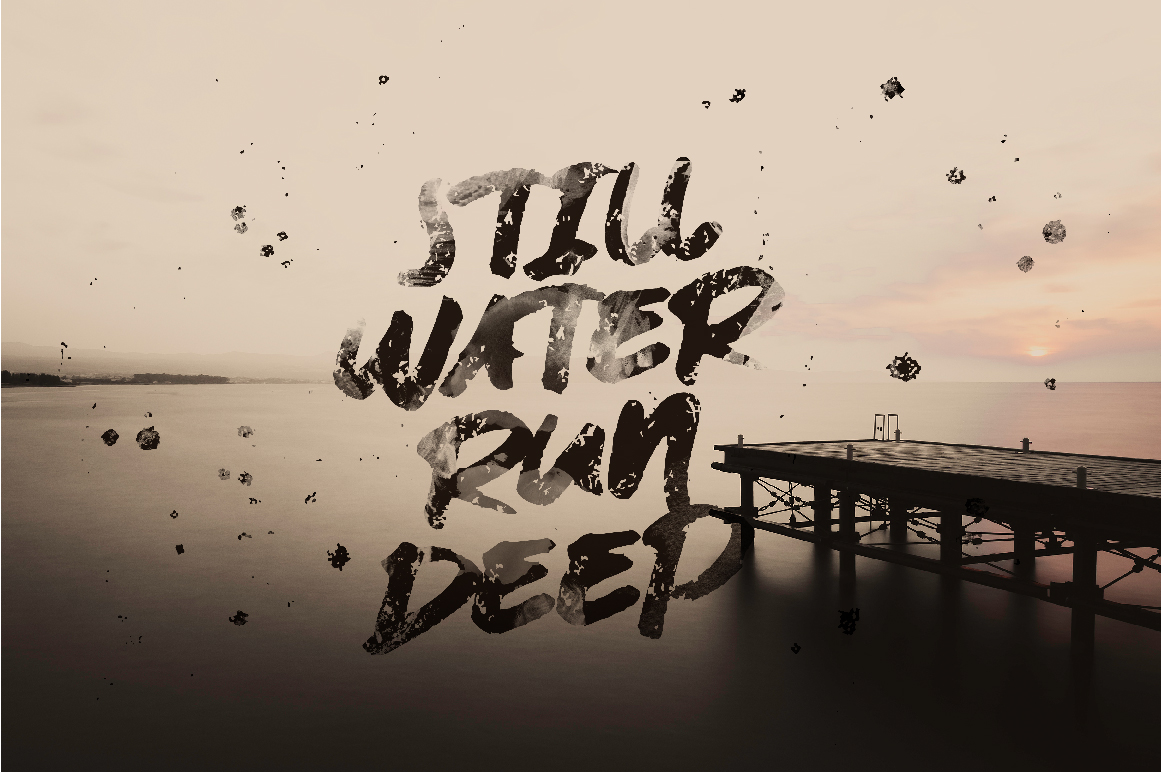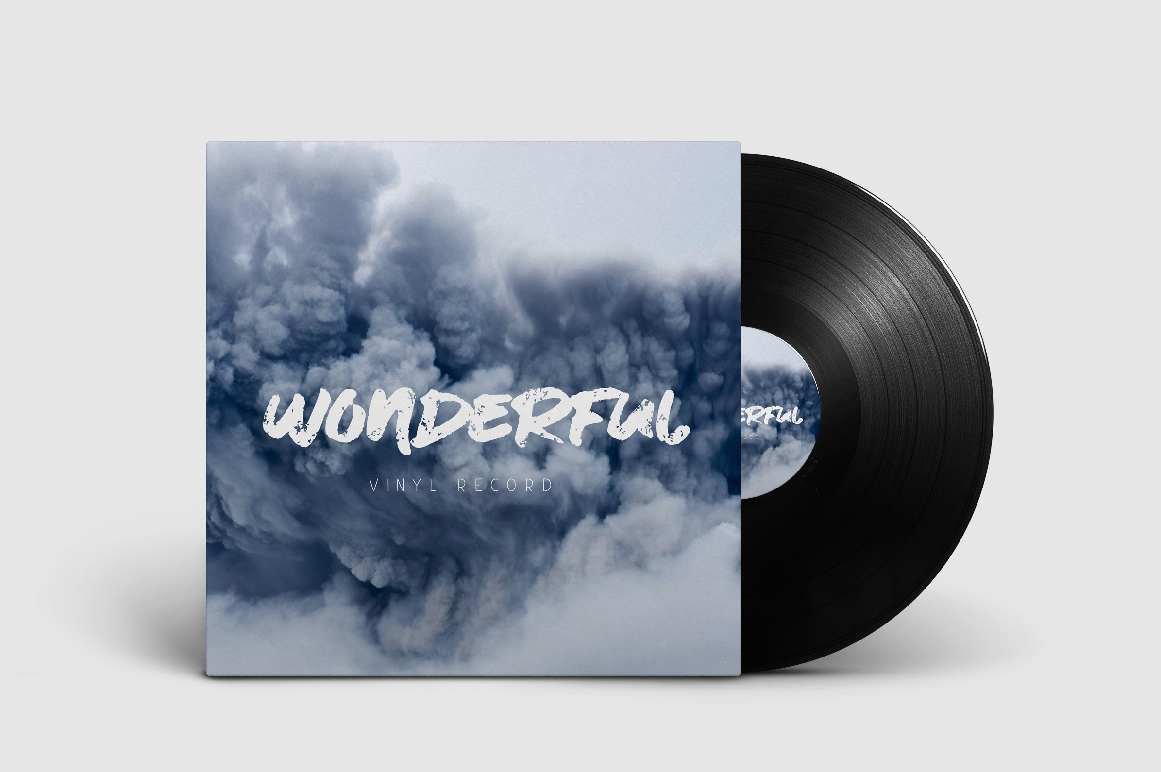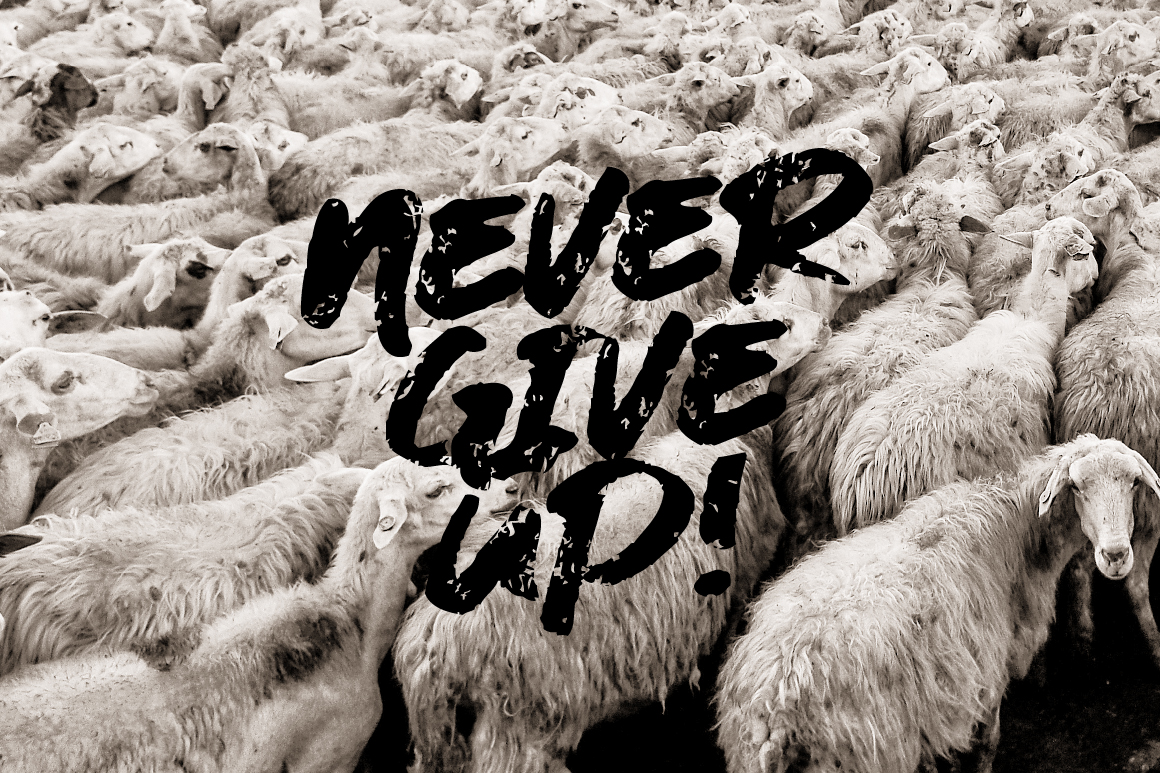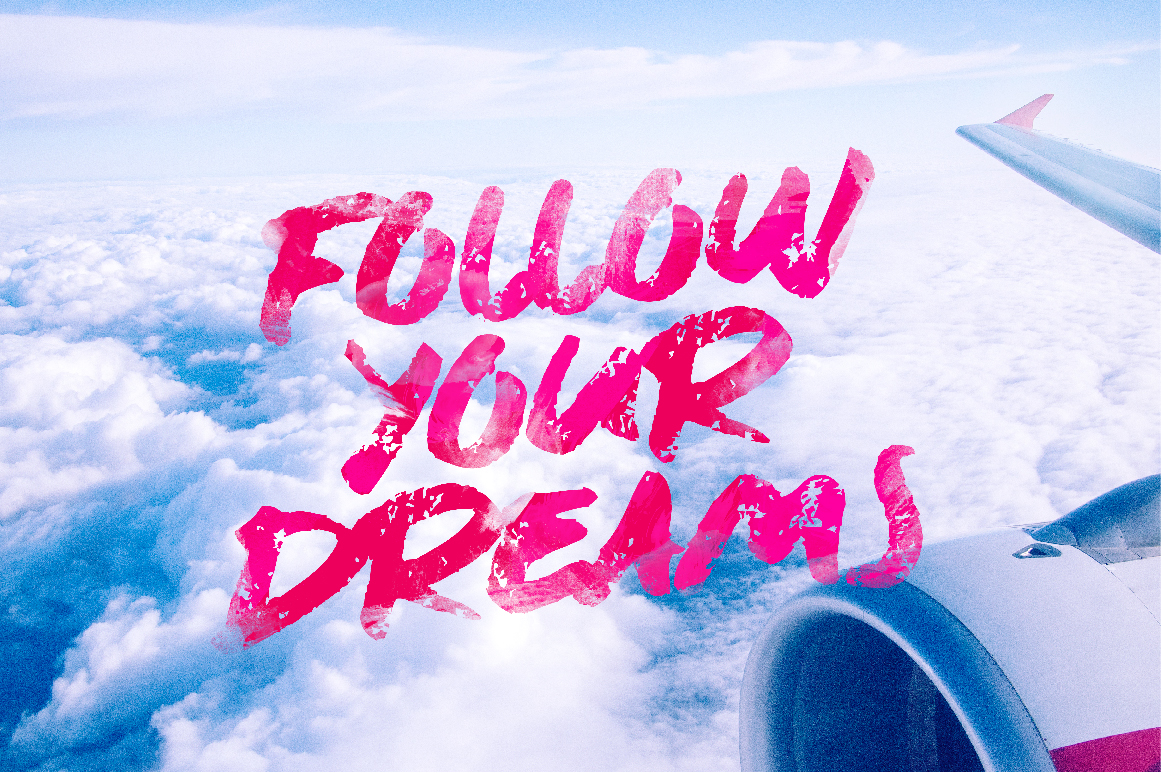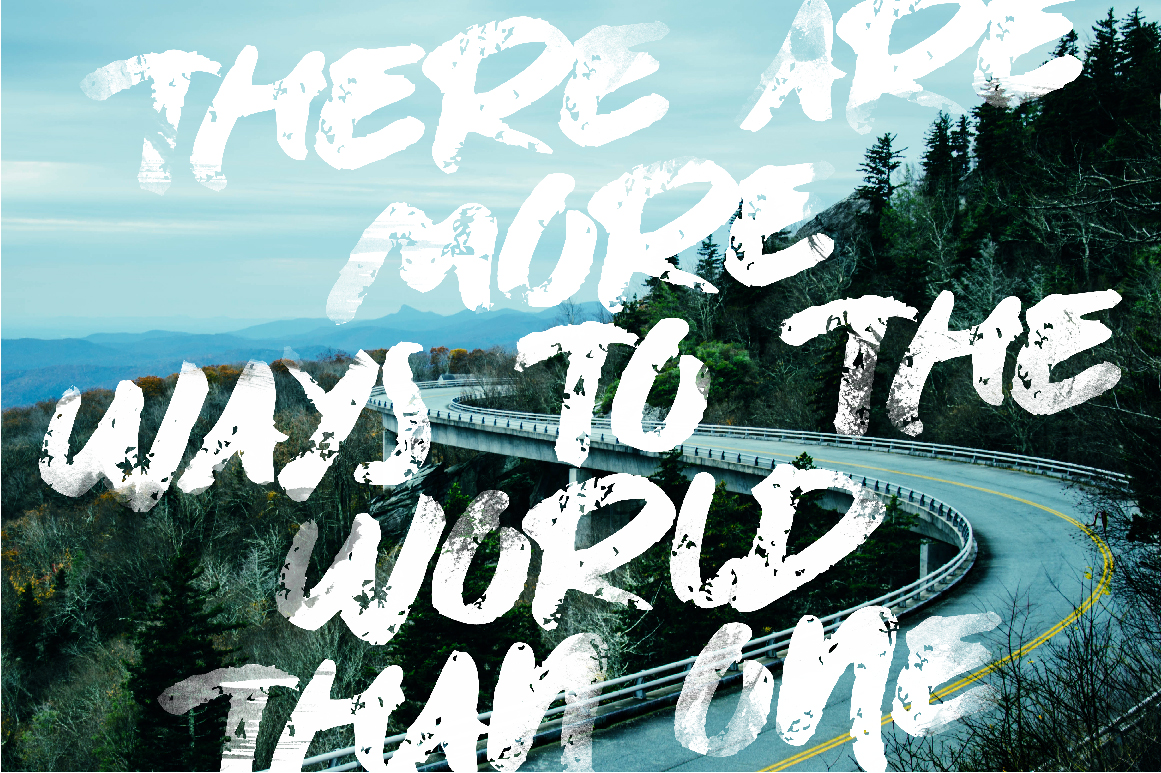
Unleash Your Creativity with the Perfect Grunge Font
Have you ever been brainstorming a design project, scrolling through font options, and suddenly, it hits you – the perfect font to bring your vision to life? That’s exactly what happened to designers who stumbled upon the Basnow Grunge Font. This versatile font is a game-changer for any project that requires a touch of handmade charm.
Basnow Grunge Font is more than just a font – it’s a tool that allows designers to add a personal touch to their work. With its extensive character set, including uppercase and lowercase letters, punctuation, glyphs, and numerals, the possibilities are endless. Whether you’re creating handwritten quotes, logos, product packaging, or t-shirts, Basnow Grunge Font is the perfect companion to bring your ideas to life.
- Unique Characteristics: Features a distressed, grunge-inspired design with rough textures and subtle imperfections.
Basnow Grunge Font Review
First off, I’d say Basnow Grunge Font has a lot going for it. The ✨ distressed texture and ✨ organic feel really make it stand out in a crowded market of grunge fonts.
- The font’s ✨ unique texture adds a layer of depth and visual interest that’s hard to find in other grunge fonts.
- ✨ The font’s bold, chunky style is perfect for making a statement and grabbing attention.
- ✨ The font is highly customizable, making it easy to adjust to fit your specific design needs.
However, I do have a few concerns. The font can feel a bit ✨ overused, and some of the characters may not render properly at smaller sizes.
- ⚠️ Some characters may not render properly at smaller sizes, which can be a problem for designs that require a lot of fine detail.
- ⚠️ The font’s texture can be overwhelming if not used carefully, so be sure to balance it with plenty of negative space.
Overall, I think Basnow Grunge Font is a solid choice for designers looking for a unique, attention-grabbing font. With a little care and attention to detail, it can really shine in the right design context.
The Basnow Grunge Font is ideal for:
1. Creating a vintage or distressed look.
2. Adding a touch of grunge or bohemian style to designs.
3. Making text stand out in a busy design.
4. Creating a unique and eye-catching logo.